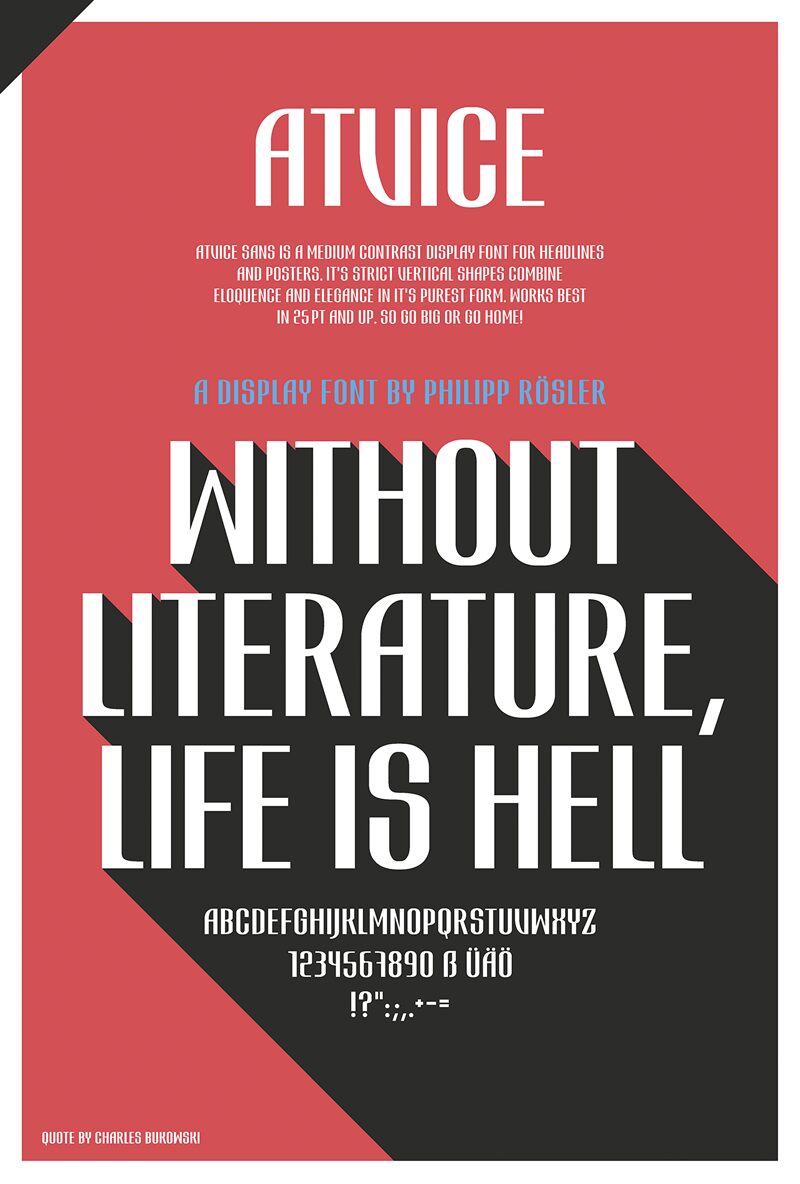
ATViCE is a medium contrast display font for print and web applications. It's strict vertical shapes combine eloquence and elegance in it's purest form. Works best in 25pt and up - so go big or go home!
I has been made within 2 weeks in cooperation with Martina Flor at Anhalt University of Applied Sciences, Department of Design, Dessau.
Atvice
Atvice Sans
Philipp RÆsler